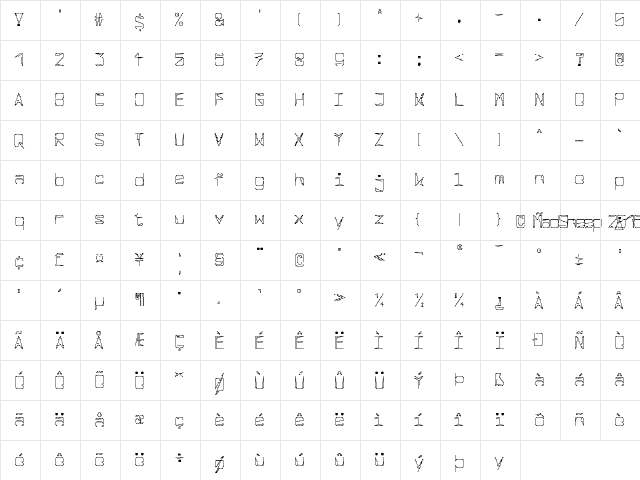
Irritation Regular
| Designer | Baljinima Batomunkuev |
Design Context for Irritation Typeface
Irritation is a composed and adaptable typeface that performs quietly and consistently across a wide range of design contexts.